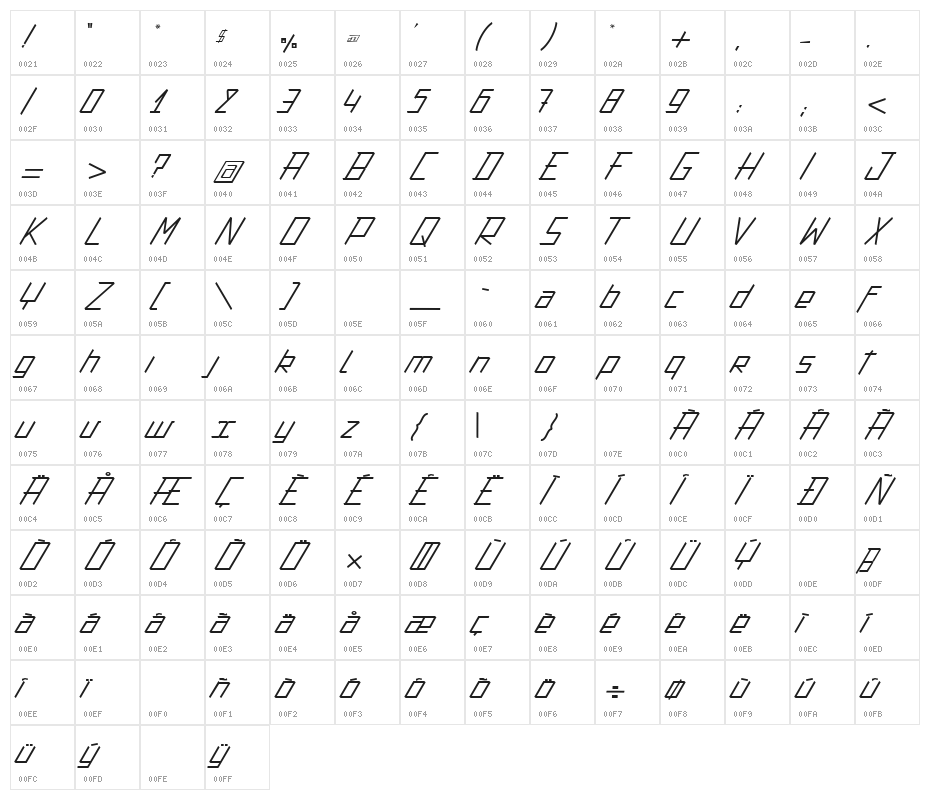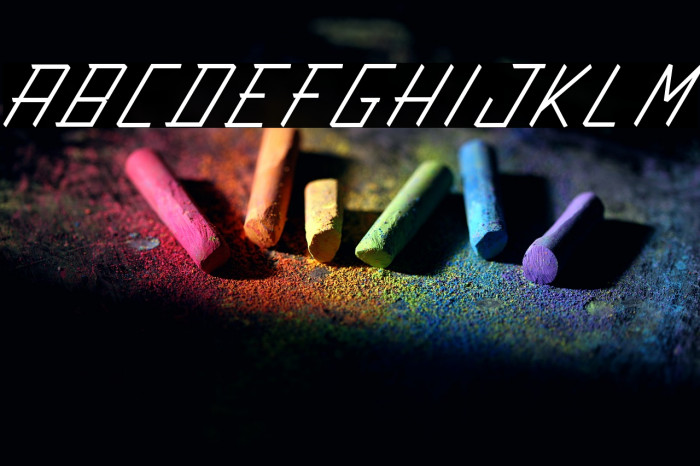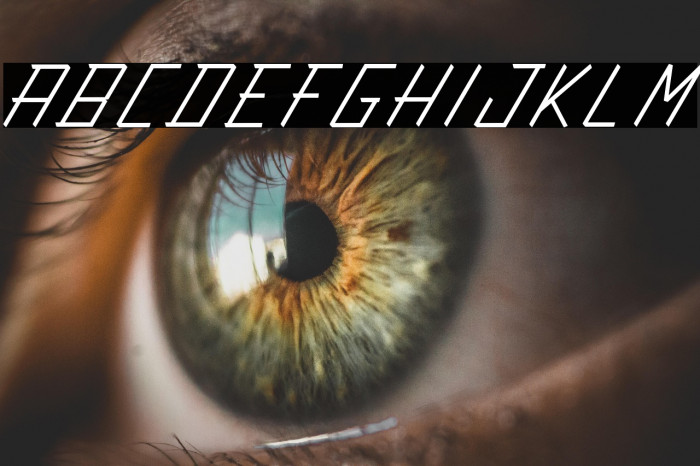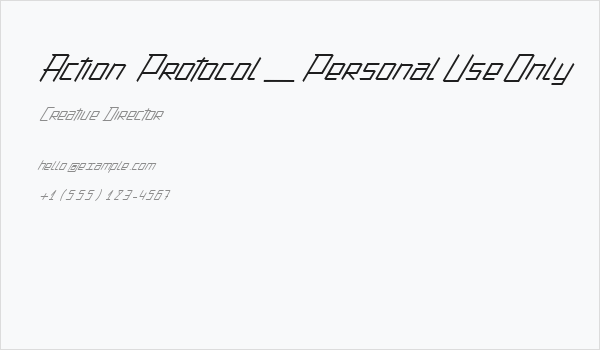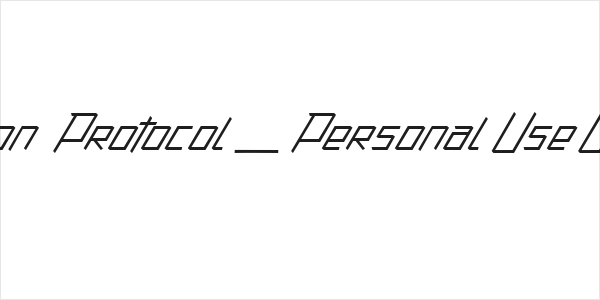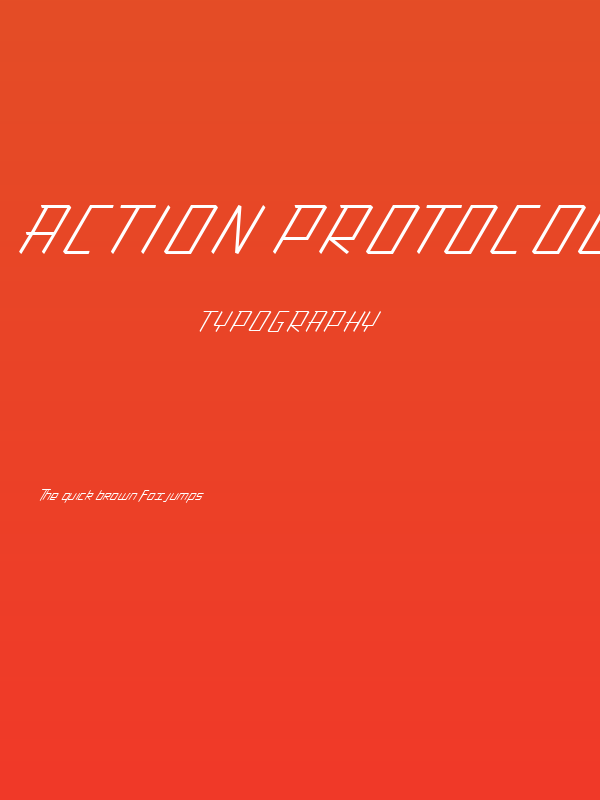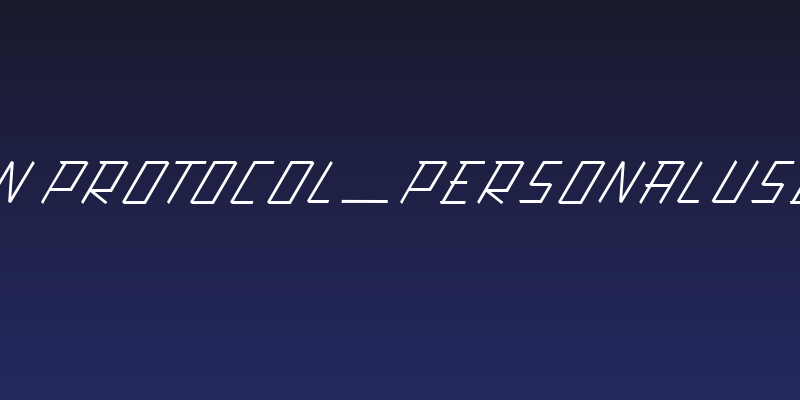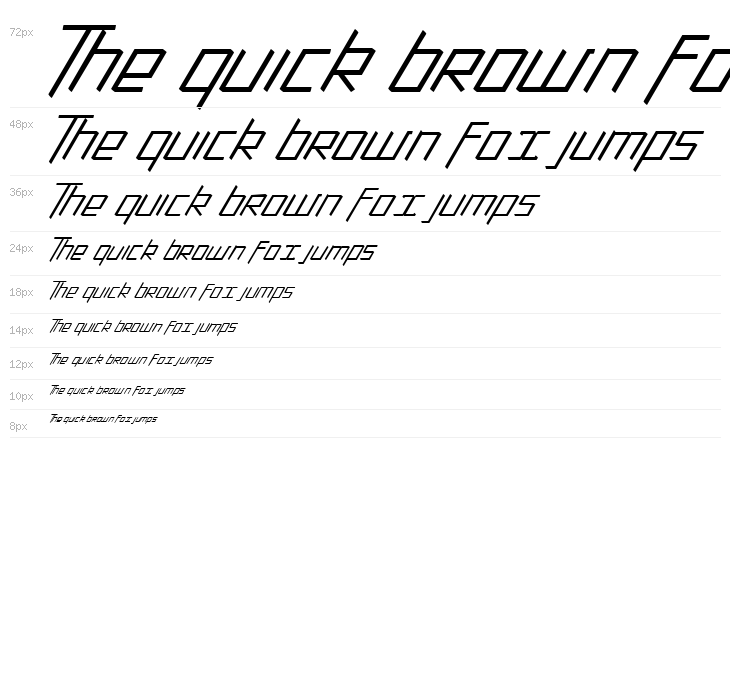
Action Protocol_PersonalUseOnly Font
Action Protocol_PersonalUseOnly Description
This font features a modern, angular design with a distinct slant, giving it a dynamic and futuristic appearance. The characters are constructed with straight lines and sharp angles, creating a sense of movement and speed. The uppercase letters are tall and narrow, while the lowercase letters maintain a consistent height, contributing to a cohesive look. The numerals and special characters follow the same angular style, ensuring uniformity across all glyphs. This font is well-suited for projects that require a sleek, contemporary aesthetic.
| Width | Condensed |
| Overall Style | Futuristic |
| Use Case | Logos, Headlines, Posters |
| Proposed Projects | Ideal for technology branding, sports team logos, futuristic designs, and dynamic posters. |